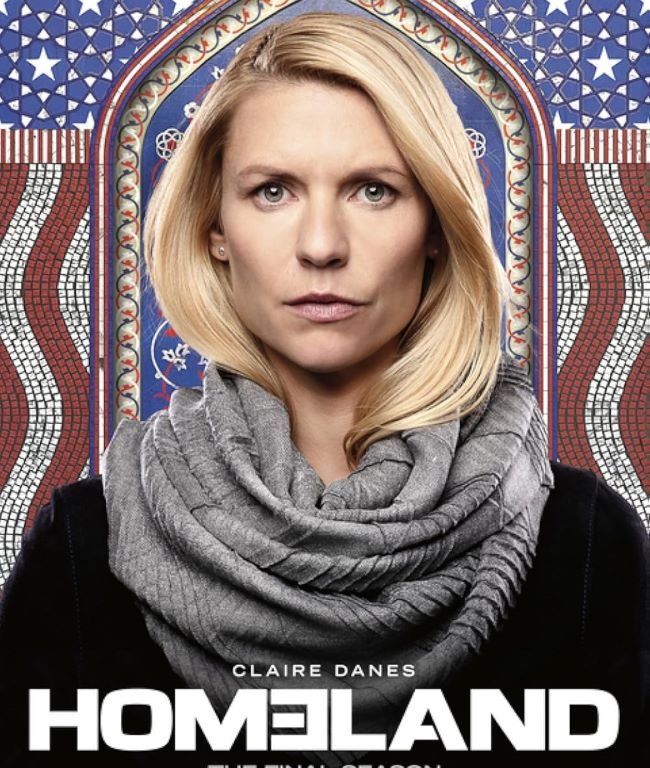
Homeland font — Coalition, designed by TracerTong Fontworks — is the typography of classified briefings and secure communications: thick, blocky, authoritative sans-serif font that communicates institutional power without flourish or apology, as appropriate for a Showtime series about CIA counterterrorism operations as it would be on the masthead of a government security publication.
The Showtime drama, premiering in 2011 and running for eight Emmys-laden seasons, needed title typography that could immediately establish credibility and seriousness — this is a show that has done its research, its typeface announces, and what follows will be treated with the gravity it deserves. The freely available Homeland Font delivers this no-nonsense institutional authority to designers’ projects.